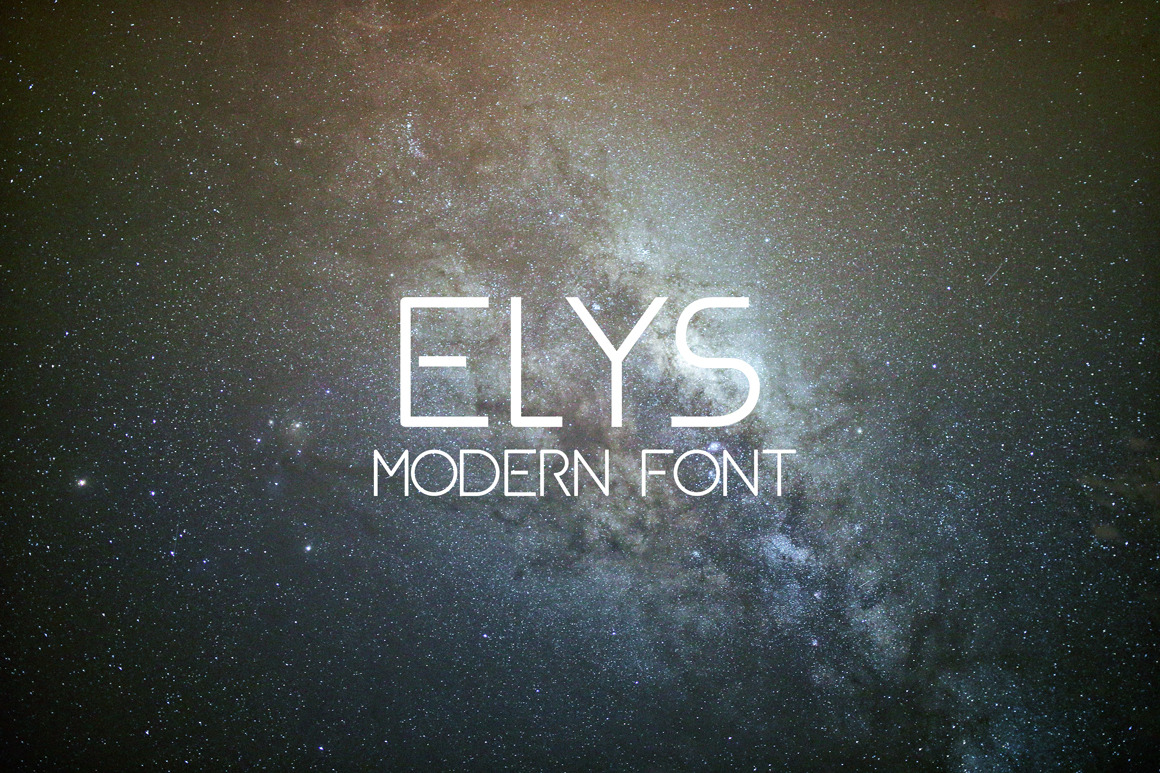
ELYS Modern Font
Hi there! New Modern Font ELYS is coming out! It is a nice display font, that will be a best choice for the headlines, logos, web etc.
ELYS contains all capital letters, numbers and some necessary punctuations.